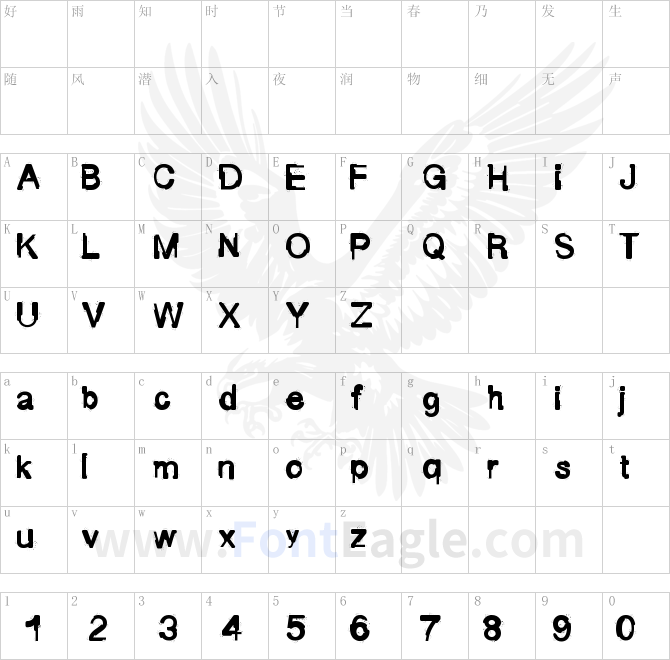
- Font name:Fluid Maska
- Font Subfamily ID:Fluid Maska:Version 1.00
- Font Full Name:Fluid Maska
- Font Version:Version 1.00 January 31, 2013, initial release
- Postscript:FluidMaska
- Font Copyright:Typeface © (Aquila Quentin a.k.a. Qkila). 2013. All Rights Reserved